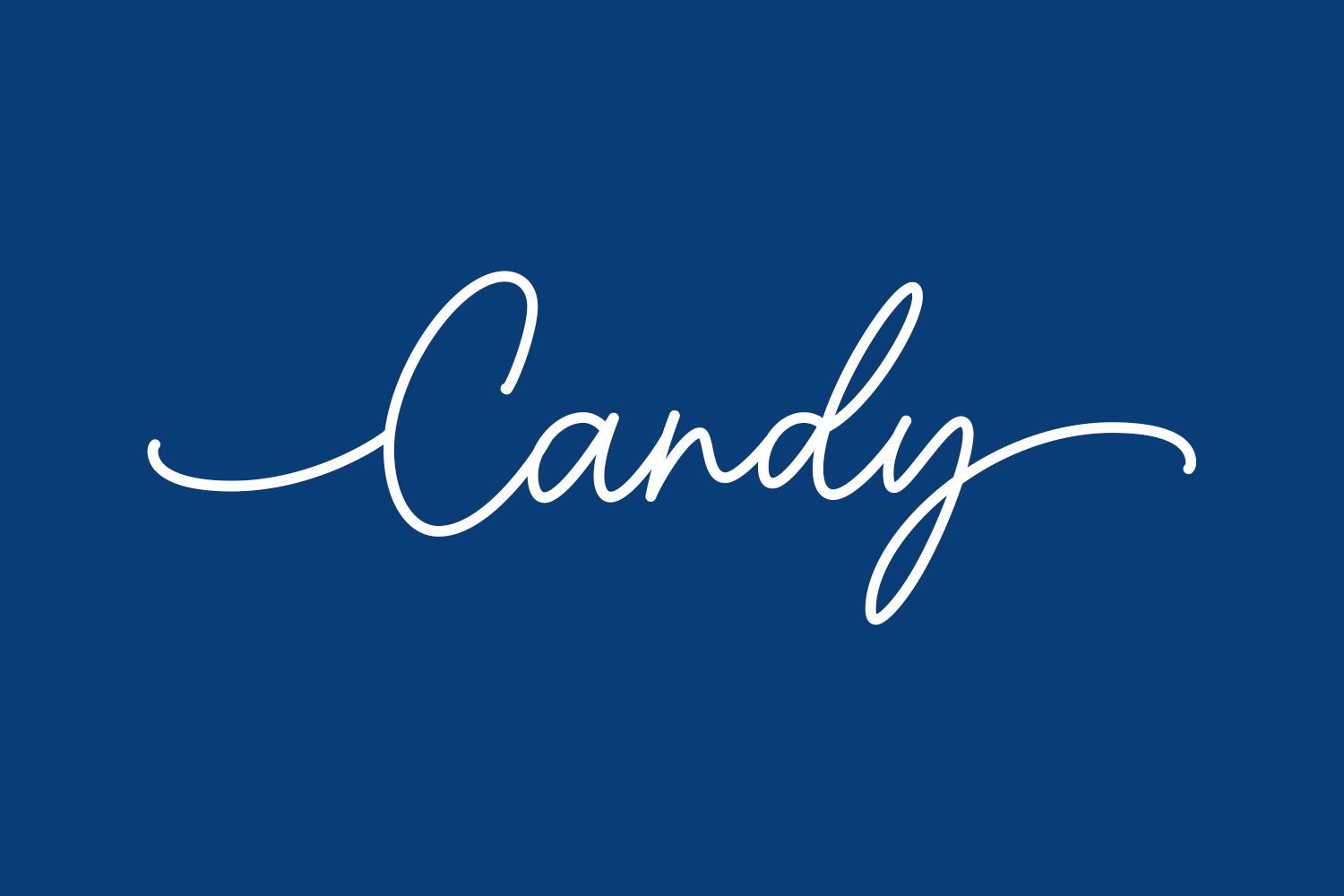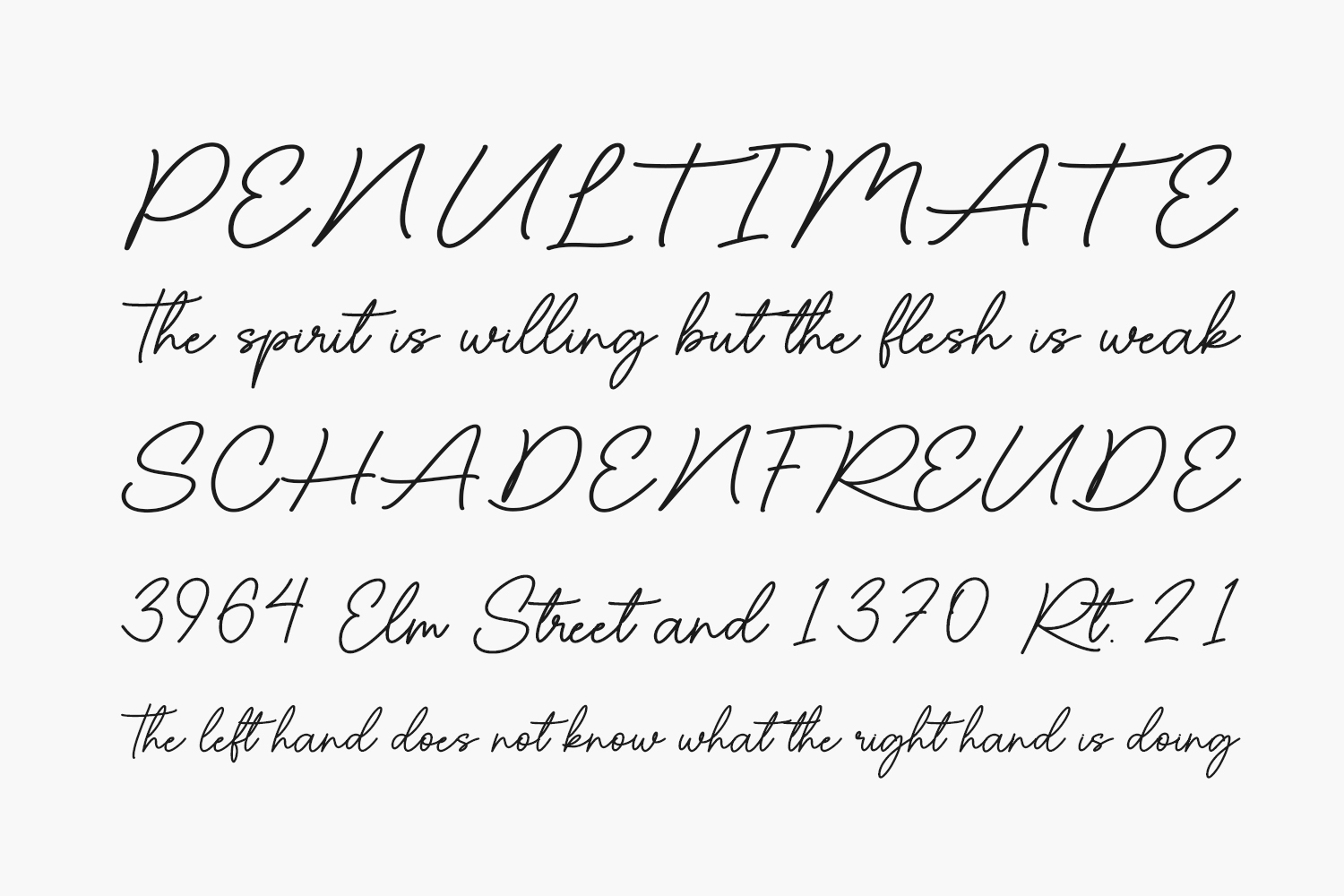
Discover Candy Free Font Family, a delightful duo of handwritten fonts meticulously crafted to complement each other seamlessly. Whether used together or individually, these fonts are perfect for infusing your crafts with a chic and cheerful vibe. Elevate your designs with the playful charm of Sticky Candy. Candy Free Font Family is free for personal use only. Please purchase the full version for commercial use.
Candy Regular The quick brown fox jumps over the lazy dog
Candy Sticky The quick brown fox jumps over the lazy dog